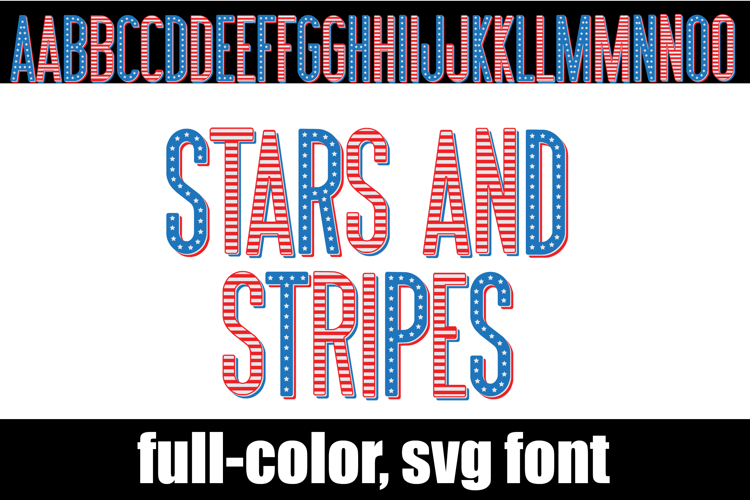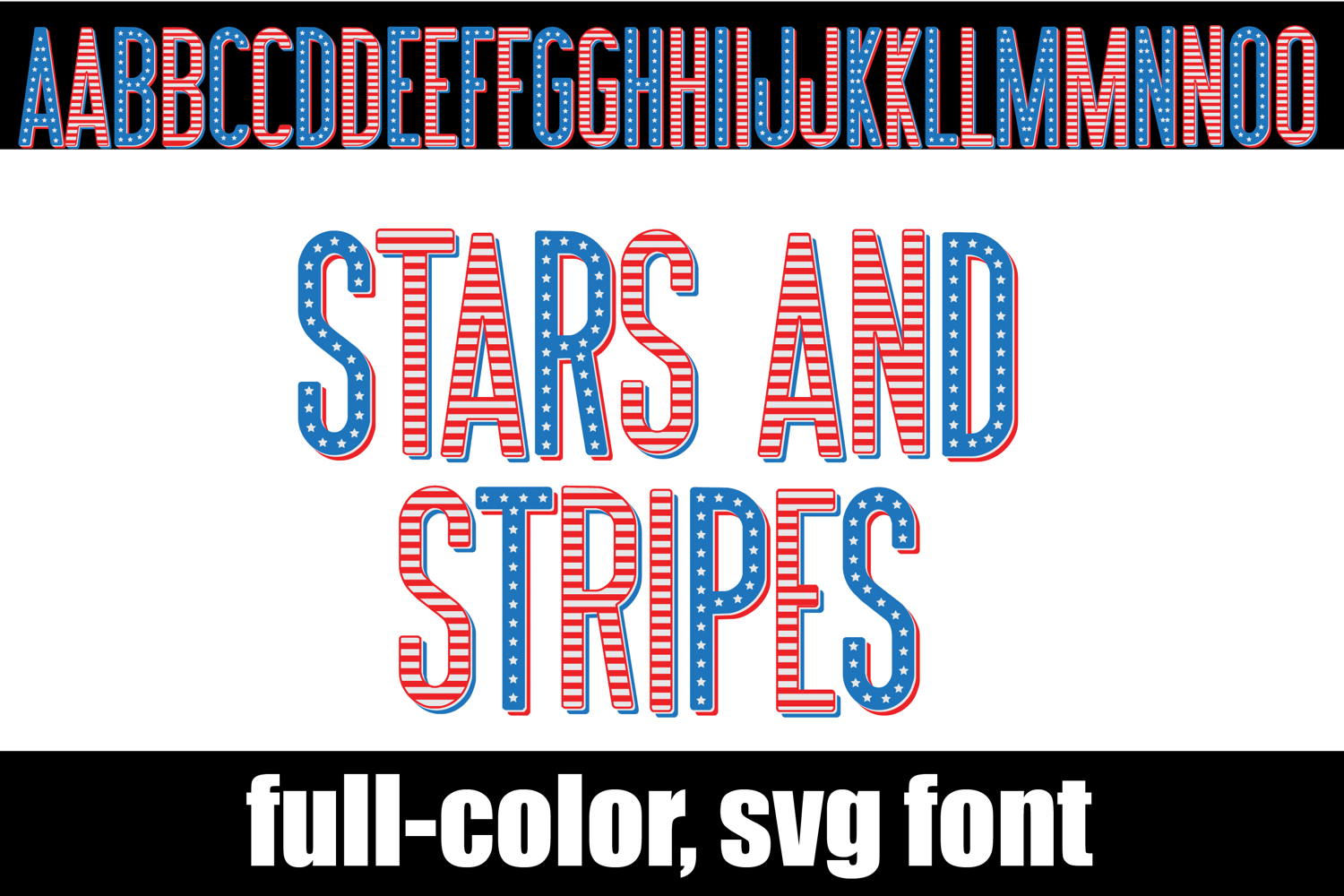
Stars and Stripes Color Font
This full-color, sans serif font is in a patriotic color palette. There is an alt case of additional colors of each letter that you can access through your system's character map.